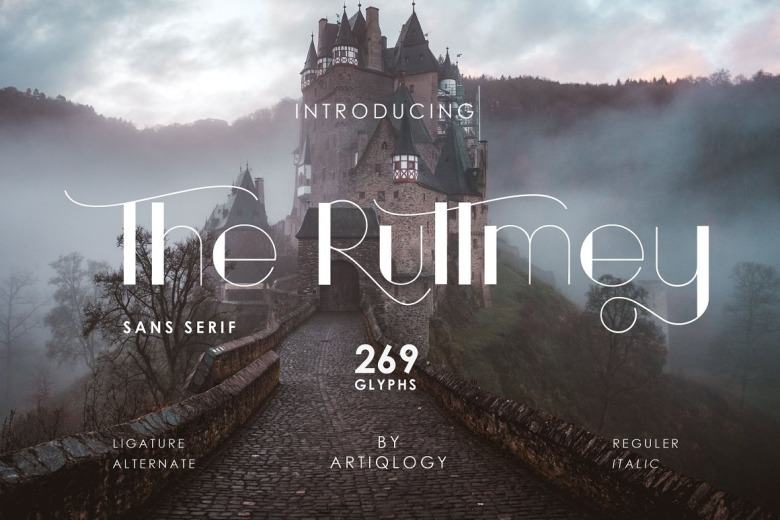
The Ruttmey Font
The Ruttmey is an elegant and unique sans serif font. With its neat and beautiful arrangement of letters, this typeface will look outstanding in both formal and non-formal designs.